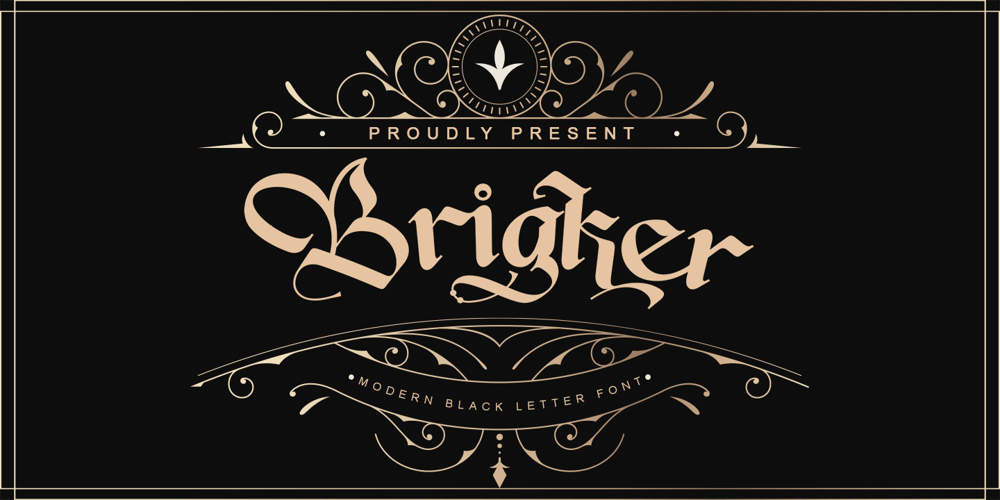
Brigker
Brigker font
Brigker Font Family was designed by Thomas Aradea and published by Letterara. Brigker contains 2 styles and family package options. Brigker is a bold, distinct and elegant blackletter font. This font is imposing and features uniquely shaped letters, and as a result, it will easily match a wide range of creations that require a distinct touch. Use it for product packaging, branding, or other projects that need bold and daring typography! It is PUA encoded which means you can access all of the glyphs and swashes with ease! Add it confidently to your projects, and you will love the results.